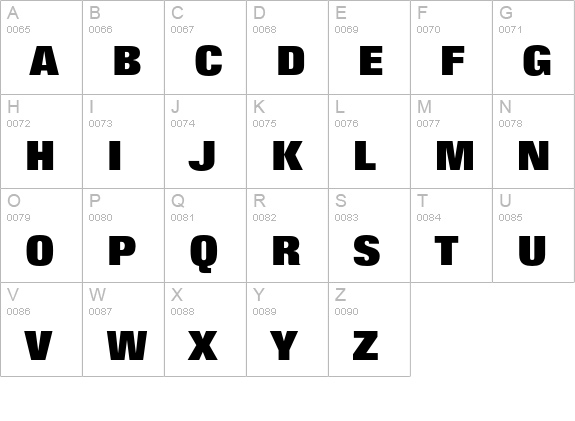
Folio Std Extra Bold is a strong, high-contrast variant in the Folio typeface family \xE2\x80\x94 well suited to headlines, attention-grabbing titles, and strong calls-to-action.
Folio Std Extra Bold is a striking and powerful font that demands attention with its bold and robust appearance. This versatile typeface exudes confidence and strength, making it ideal for headlines, titles, and other display purposes. Its clean lines and sharp edges give it a modern and professional look that is sure to make a statement. What sets Folio Std Extra Bold apart is that it is not only visually impactful but also freely available for download. You can easily access this impressive font at FontsMarket.com, where you can add it to your font collection without any cost. Whether you need a bold typeface for your design projects or simply want to enhance your typography arsenal, Folio Std Extra Bold is a fantastic choice that won't break the bank. Download it today and elevate your designs with this striking and versatile font.